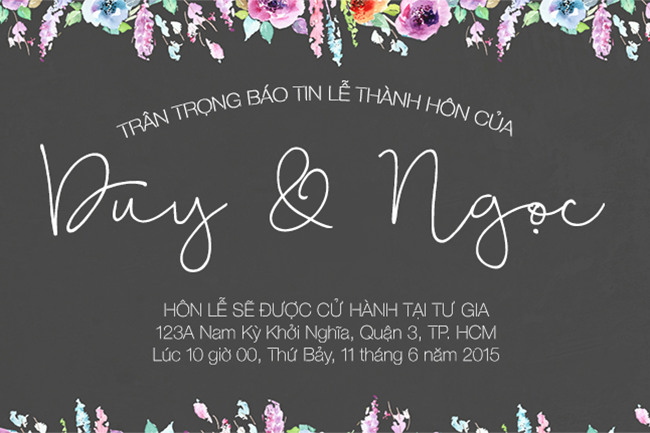
[Hand-write] Bellwethers Việt hóa
Thông tin về font Bellwethers
Meet Bellwethers... a fancy, doodley, hand-drawn typeface with swashes galore. Perfect to add a little whimsy and carefree elegance to your next project.
This font contains 6 separate fonts that include a full-on smorgasbord of swash letterforms. Swashes are easily accessible by simply dropping text into your desired swash font.